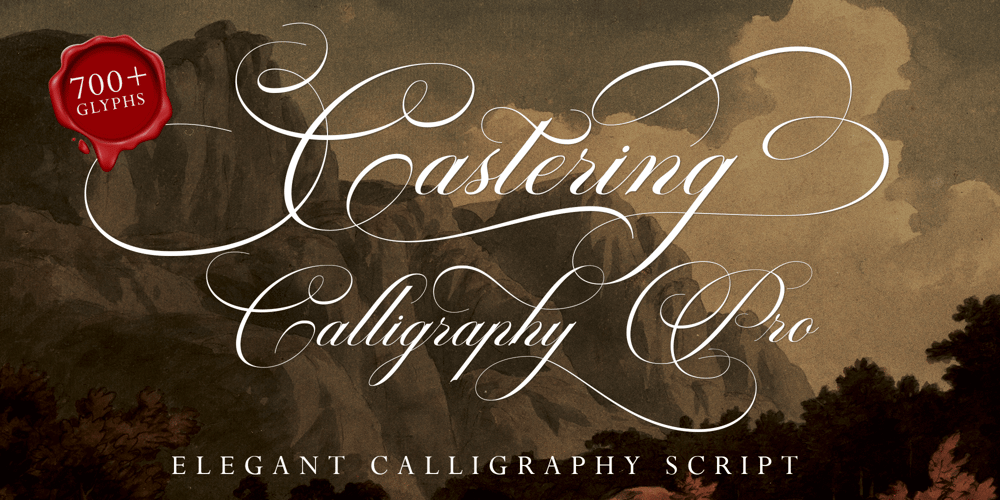
Castering
Castering font
Castering Font Family was designed by Romi Rahmadi and published by Romie Creative. Castering contains 1 styles and family package options. Castering calligraphy Pro, Castering calligraphy Pro,is handcrafted with copper plate stylus and features opentype with pua encode, Castering calligraphy Pro, includes alternatives, style sets, ligatures, and swashes, Each glyph lowercase has a stylized styling, Swiss is perfect for branding, invitations wedding and cards or quotes.In order to use beautiful swashes, you need a program that supports OpenType features such as Adobe Illustrator CS, Adobe Photoshop CC, Adobe Indesign and Corel Draw. Swash is called alternate style. For example, the letter “a” with ss.01 and a closing swash is an alternate style for “a”. To access you need it, you need to open the Glyphs panel.Photoshop has a glyph panel where you can find alternatives and ligatures. Select the Beloved Gray font and open the Glyphs Window and double click on the glyph you want to use. To open from Illustrator, please follow: Window –Types –Glyphs.Thank you and have a nice dayRegards Romie Creative